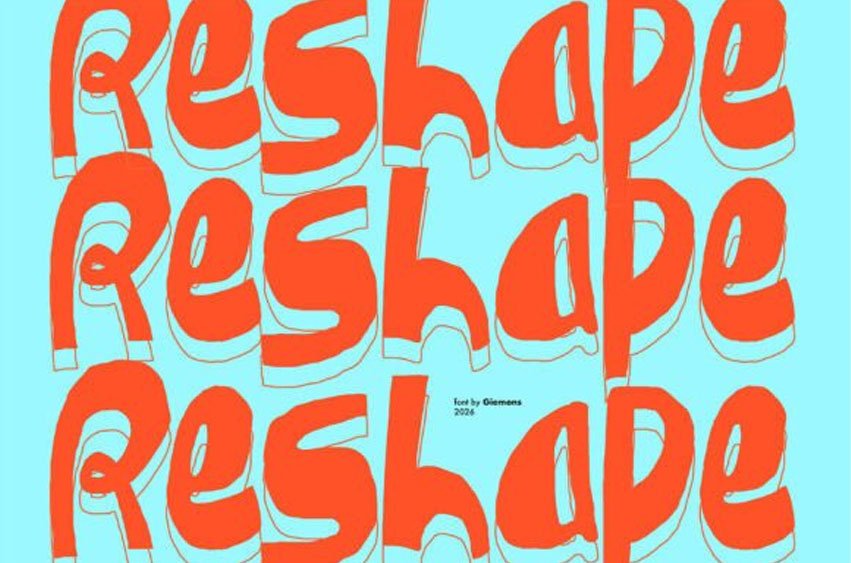
Reshape Font Push the boundaries of conventional design with the avant-garde Reshape font.
This experimental, liquid-inspired Reshape typeface is all about movement and distorted geometry, perfect for the modern “anti-design” trend and high-concept art. The Reshape font functions as a piece of art in itself; use it for experimental music posters, streetwear branding, and edgy editorial spreads where the type needs to be the hero.
By utilizing the unique flow of this Reshape typeface, you can create psychedelic visuals that demand attention.
Enhanced by vibrant, clashing colors or grainy textures, this font is the ultimate tool for designers looking to break the mold and create something truly unforgettable.